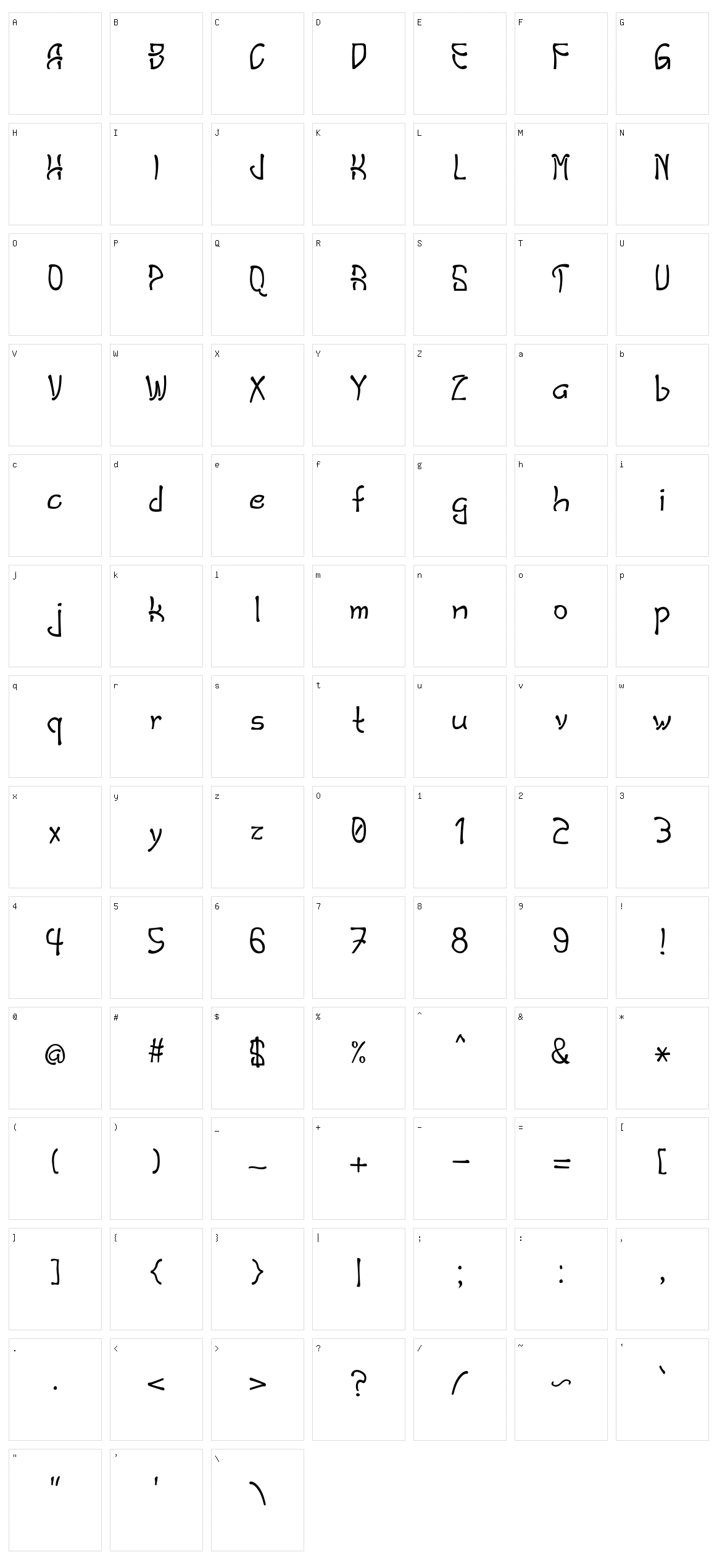
The free font Salome is carefully designed by ThorType, showcasing a thoughtful balance of creativity and usability and falls under the Retro font style. When you download the ZIP file, it contains only 15.94 KB of font files, making it lightweight and quick to download. Please review the license details below to understand permitted usage and distribution rights. If license information is not available, we recommend using this font for personal projects only or contacting the author directly for commercial usage permissions.